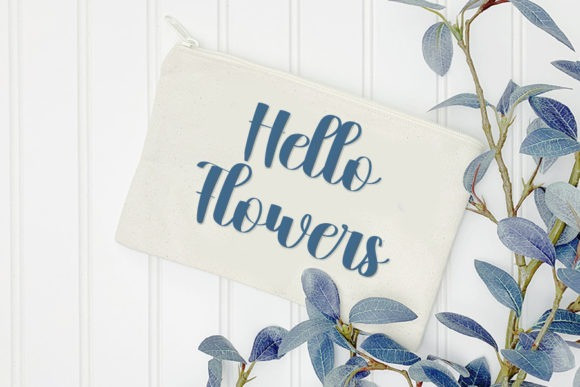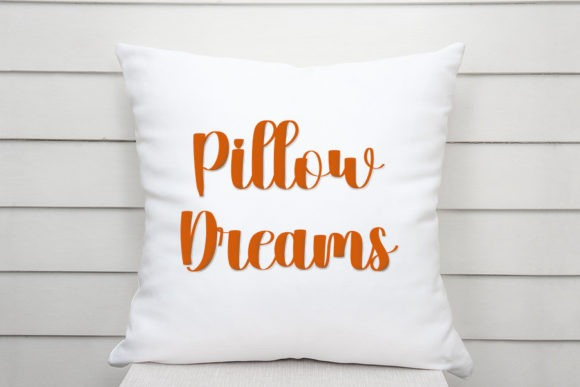
Culture Font
Culture Font is a beautiful and refined script font. It has a classy, elegant and modern look that can be used for logos, branding, invitations, stationery, wedding designs, social media posts, and much more!